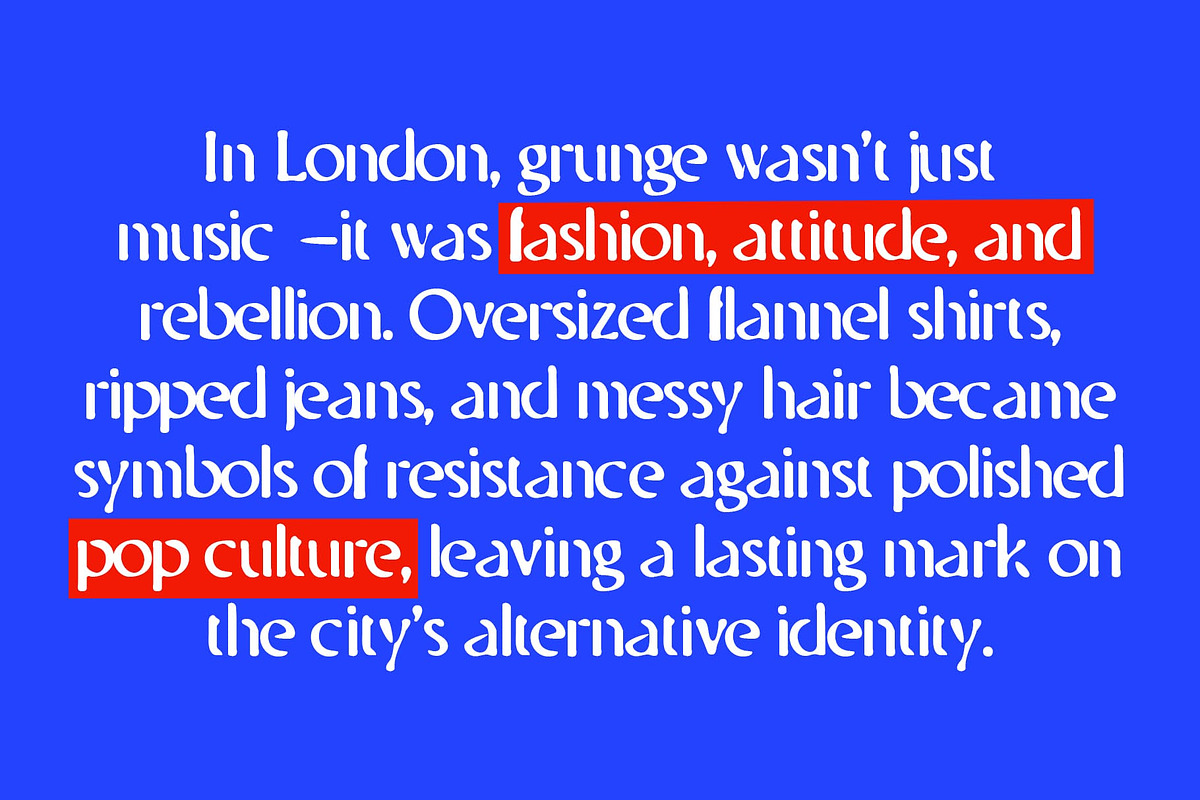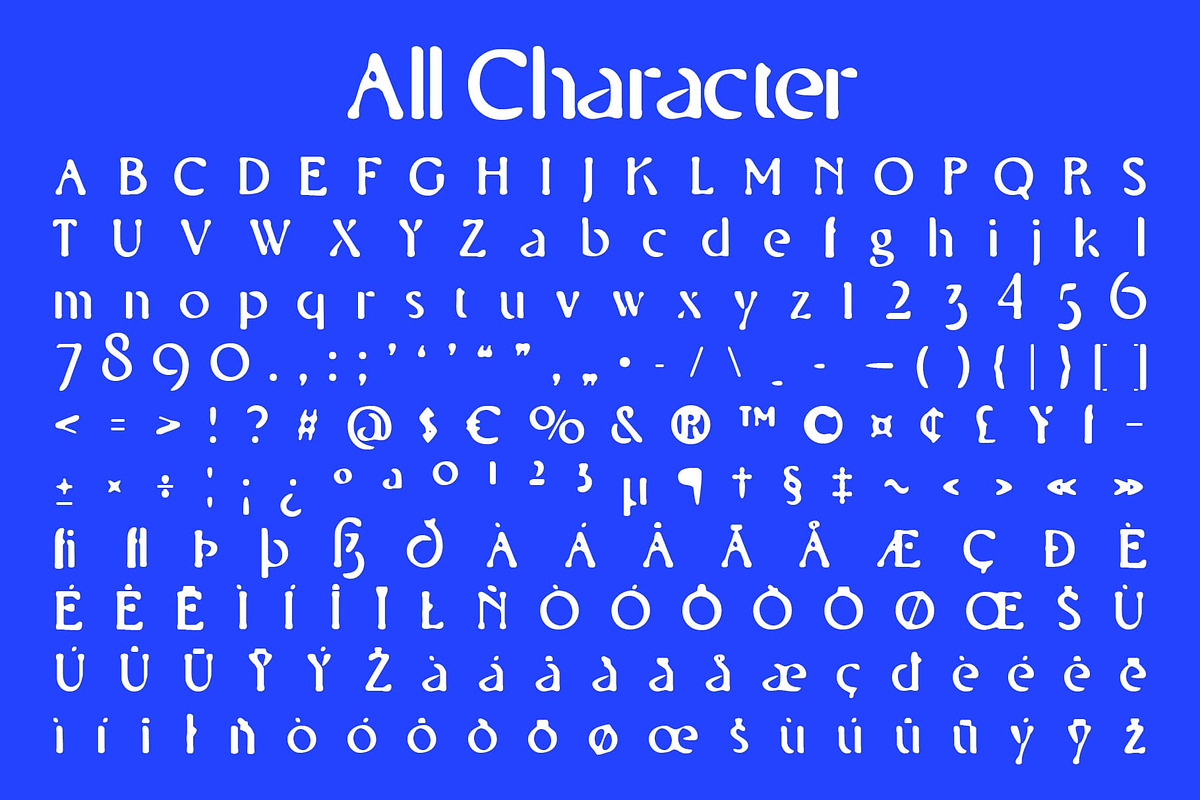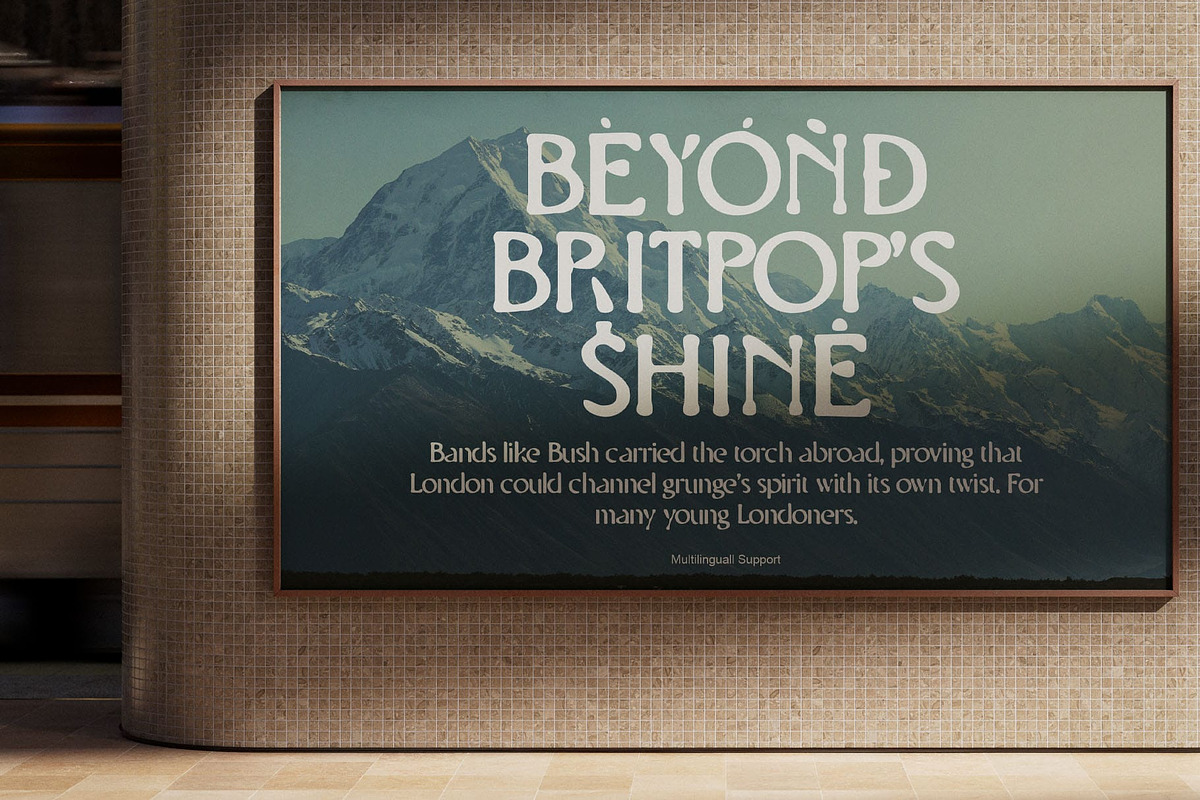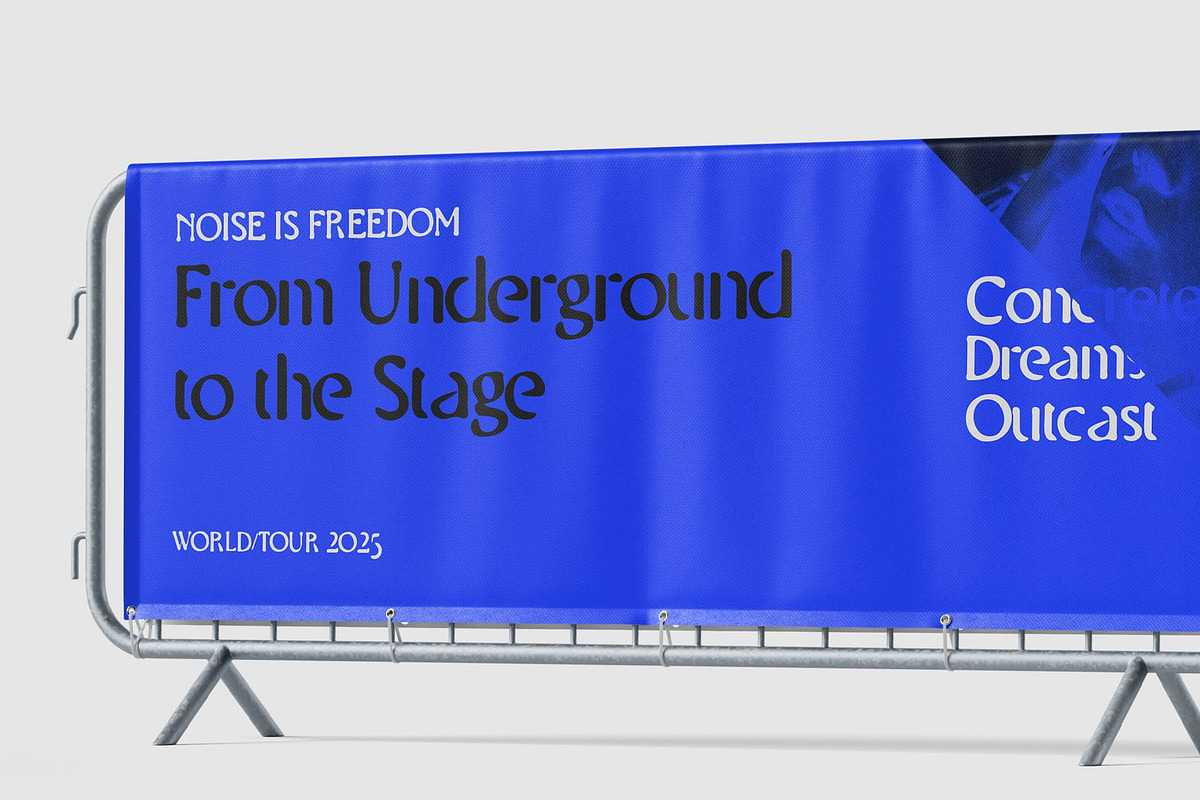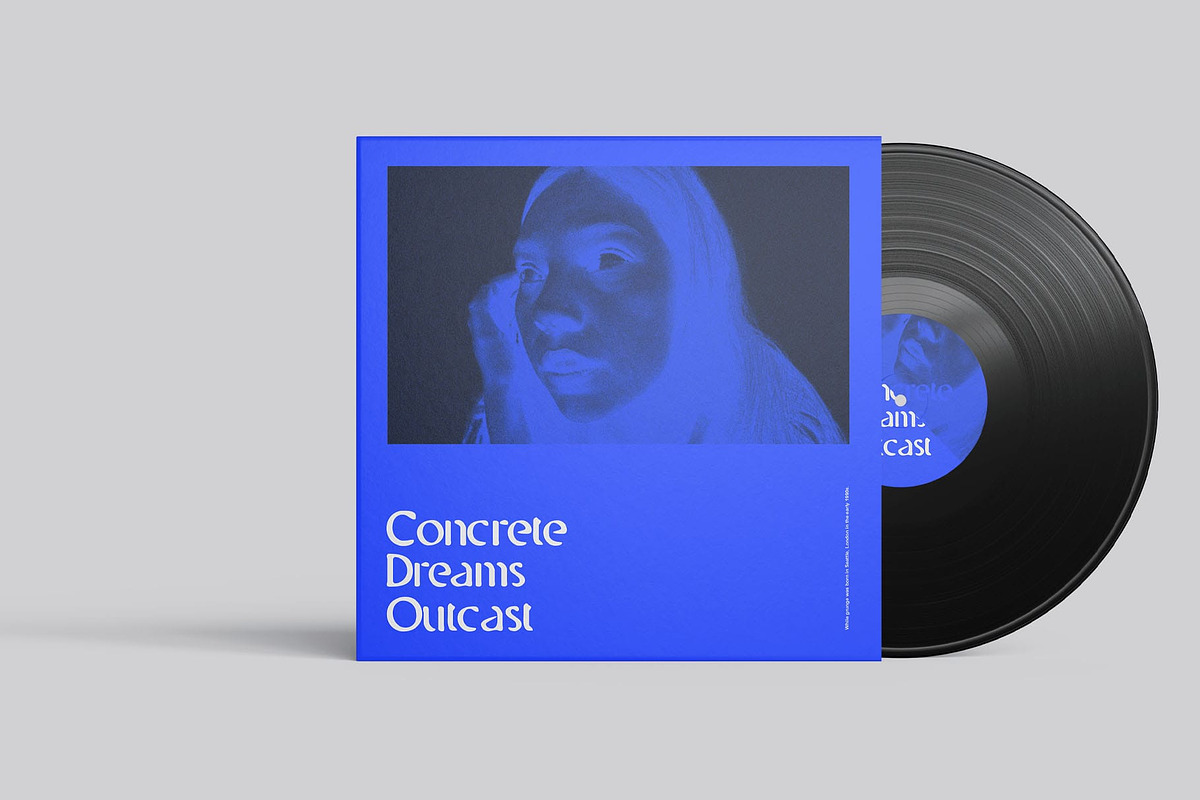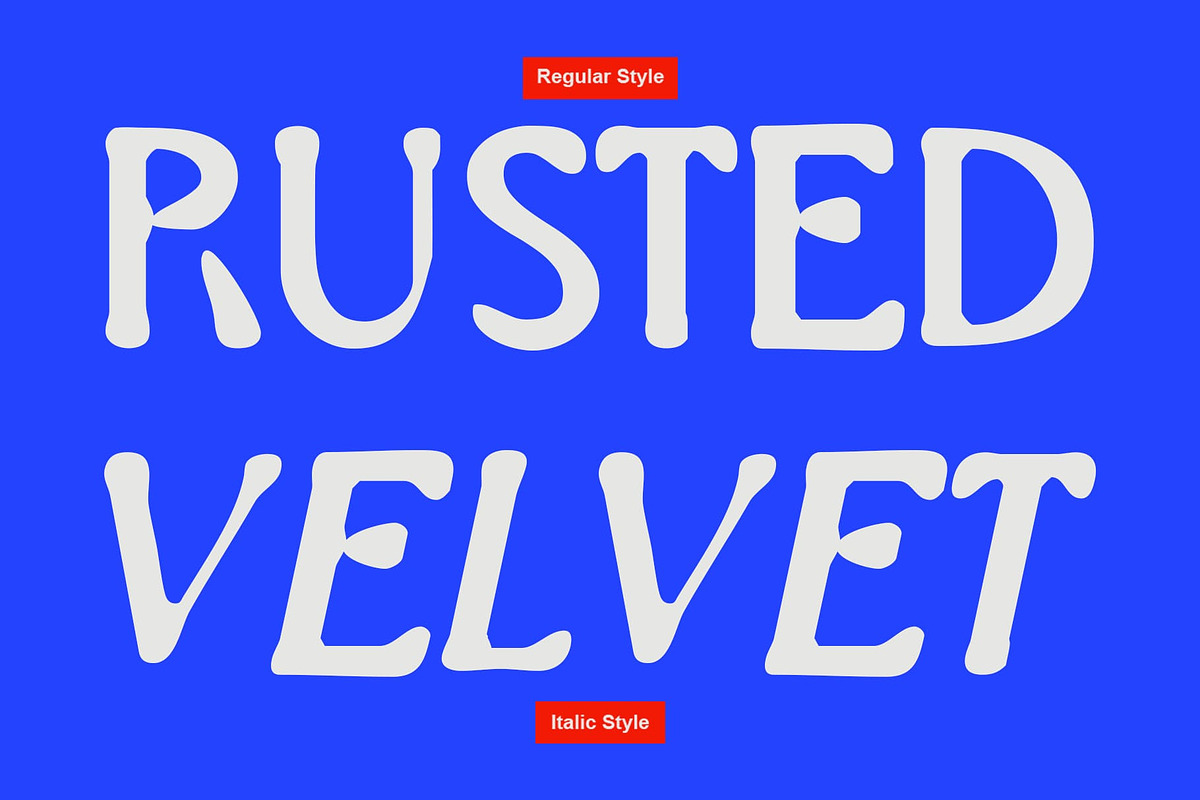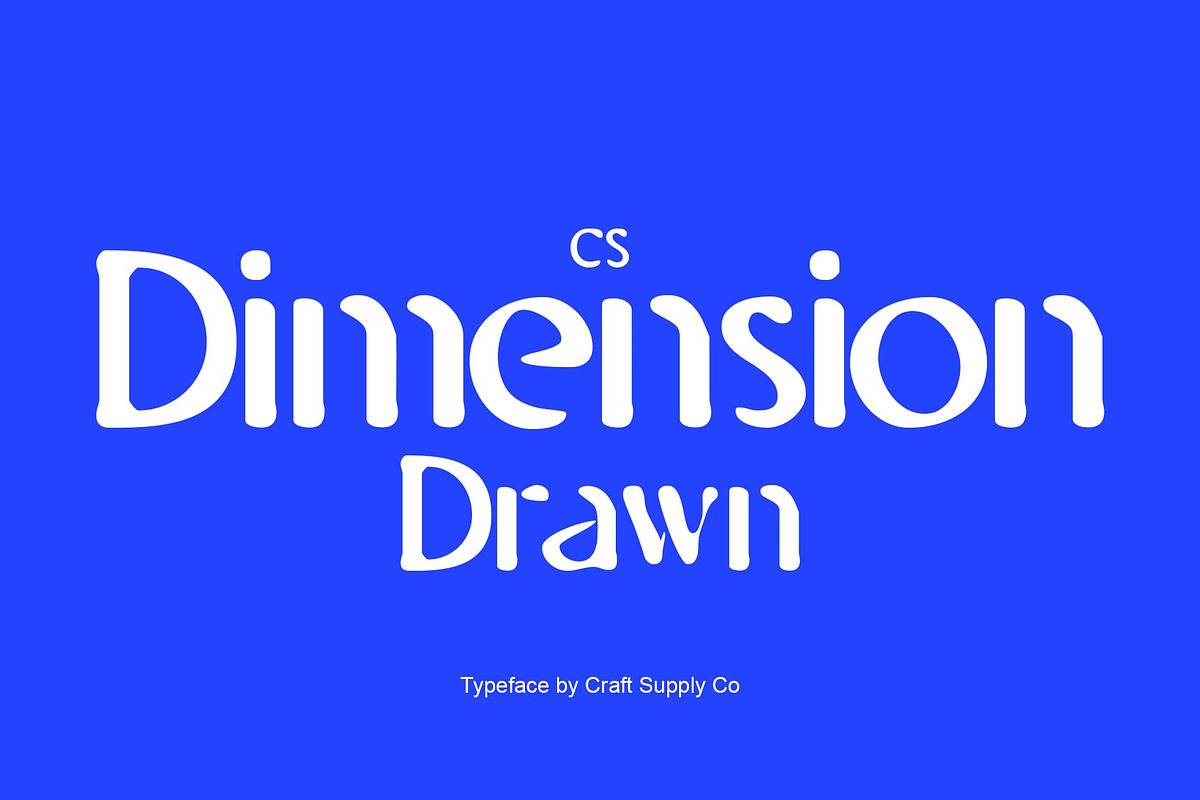
CS Dimension Drawn
CS Dimension Drawn – Stencil Font with Expressive Texture Stencil Display Font with Drawn Effect
Bold Display with Stencil Style CS Dimension Drawn is a stencil font designed for display purposes, blending bold structural forms with expressive artistry. Its open cuts and strong framework ensure visibility and impact, making it ideal for titles, logos, and standout graphics where clarity and boldness are essential.
Hand-Drawn Texture for Authenticity What makes CS Dimension Drawn unique is its drawn effect, which gives each letter a handmade, irregular quality. The texture resembles scribbled strokes, adding depth and authenticity that feels organic. This handcrafted character transforms the precision of stencil forms into something far more expressive and visually dynamic.
Perfect for Editorials, Branding, and Digital Use From contemporary editorials to cutting-edge branding and digital projects, CS Dimension Drawn adapts seamlessly. Its stencil foundation ensures modern clarity, while its textured finish adds individuality and artistic flair. Whether you’re working on posters, magazine layouts, or digital campaigns, this font creates a bold and memorable impression.
Creative Balance of Modern and Artistic CS Dimension Drawn strikes the perfect balance between structured stencil geometry and playful, irregular hand-drawn energy. This fusion allows designers to push boundaries while maintaining readability. Ideal for projects that need both strength and creativity, it’s a versatile display companion that makes any design stand out with character.